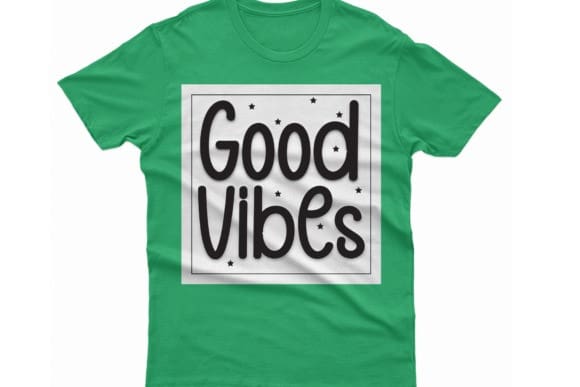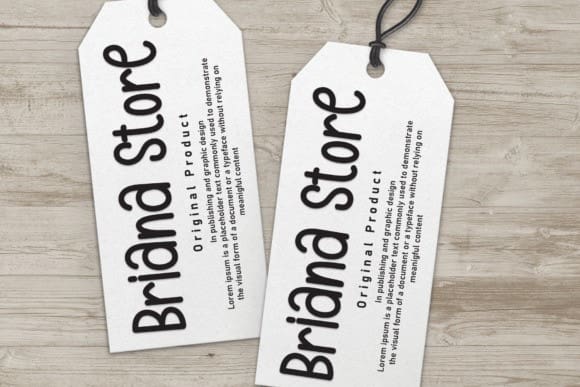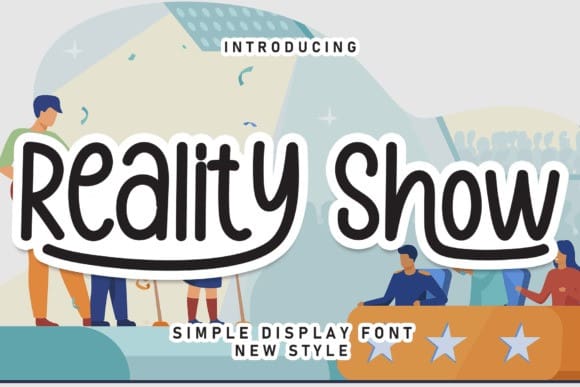
Reality Show Font
Reality Show Font is a sweet and friendly handwritten display font. Cute and fun, this font is ideal for writing wedding invitations, cards, or any other design that might need a fun touch!